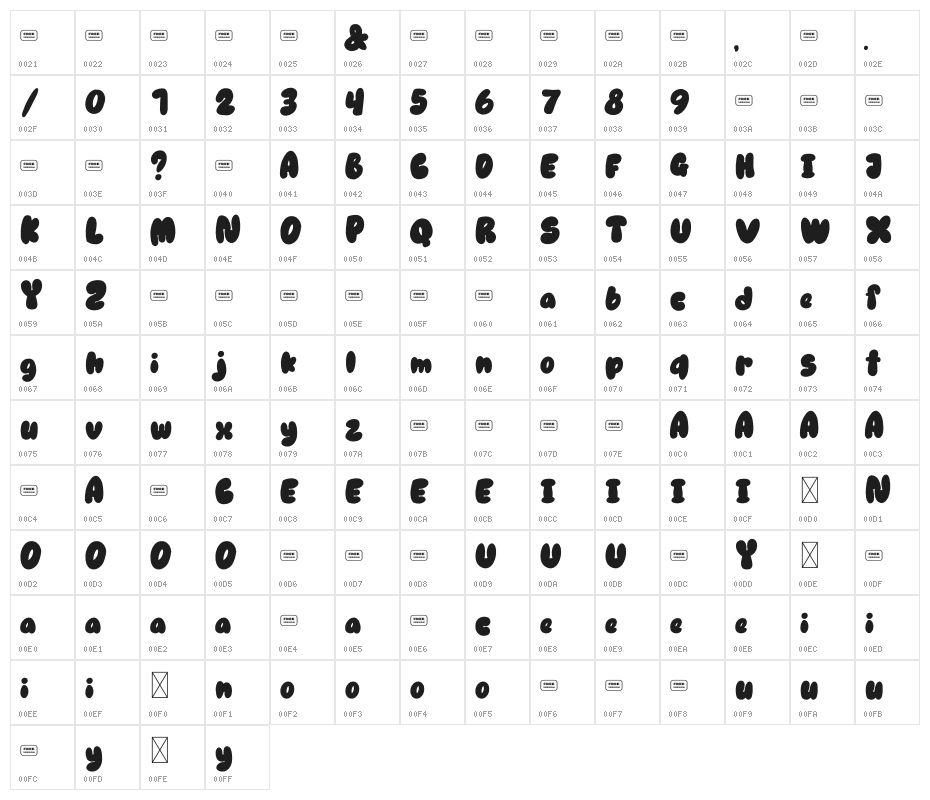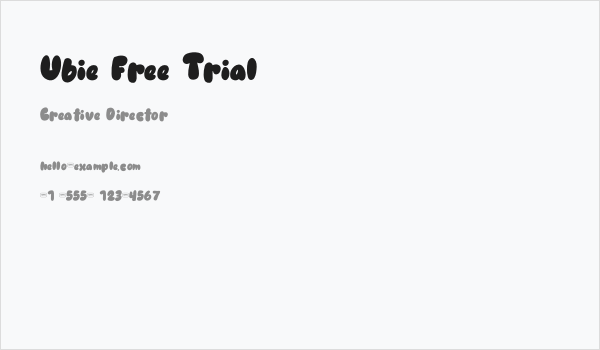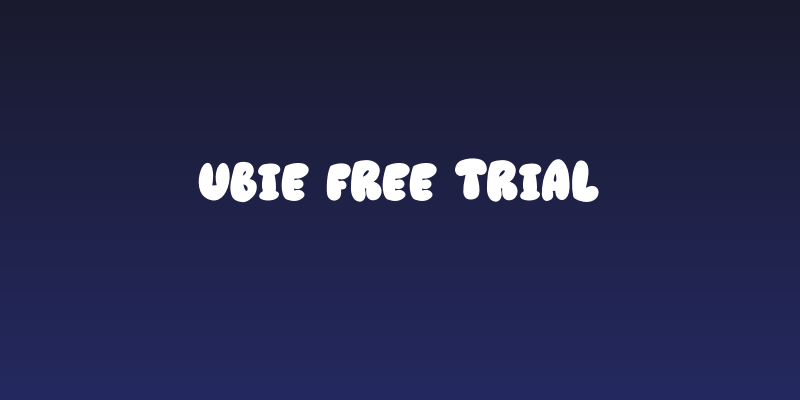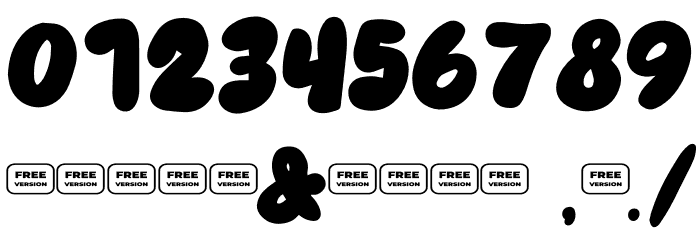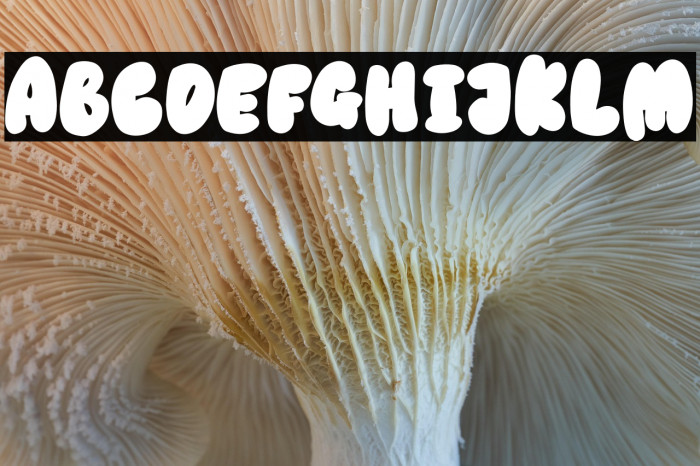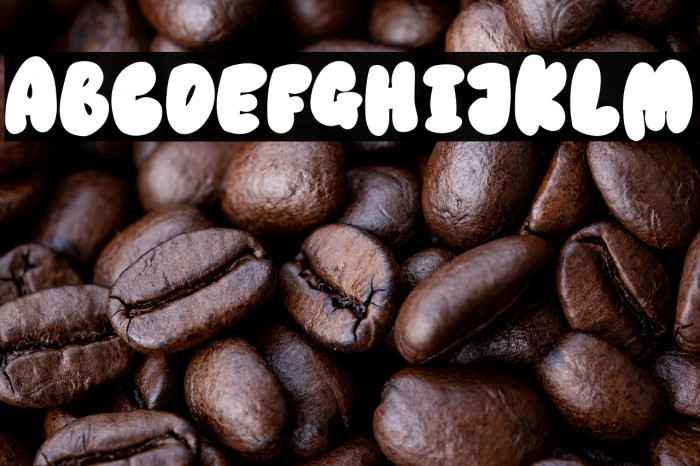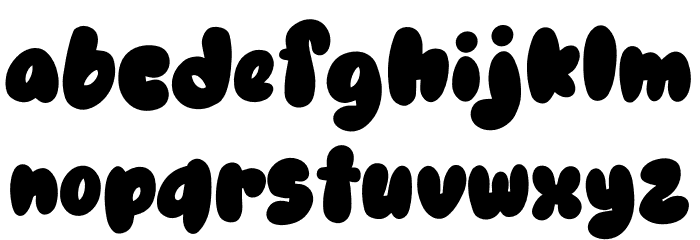
Ubie Free Trial Font
Ubie Free Trial Description
This playful and bold font features rounded, bubble-like characters that exude a sense of fun and creativity. Each letter is thick and substantial, with a uniform stroke width that gives the font a cohesive and solid appearance. The characters are closely spaced, enhancing the compact and chunky feel. The font's style is reminiscent of playful, childlike designs, making it ideal for projects that require a touch of whimsy and lightheartedness. Its boldness ensures high visibility and impact, making it suitable for eye-catching headlines or logos.
| Overall Style | Playful |
| Proposed Projects | Ideal for children's book covers, playful branding, party invitations, and eye-catching headlines. |